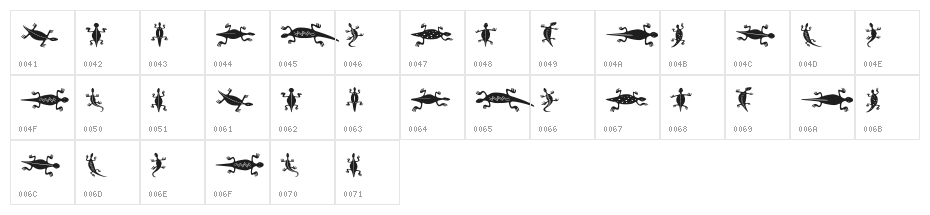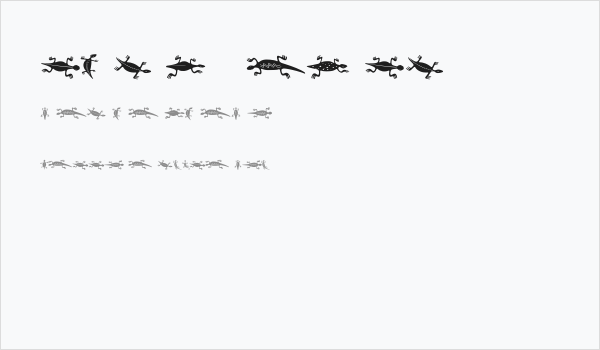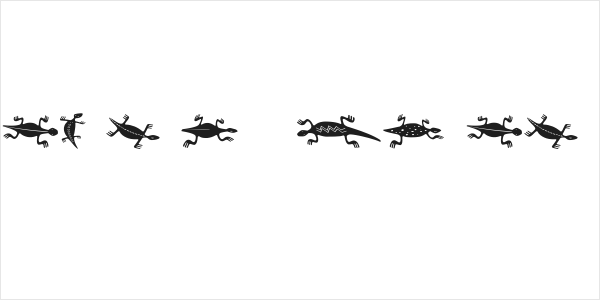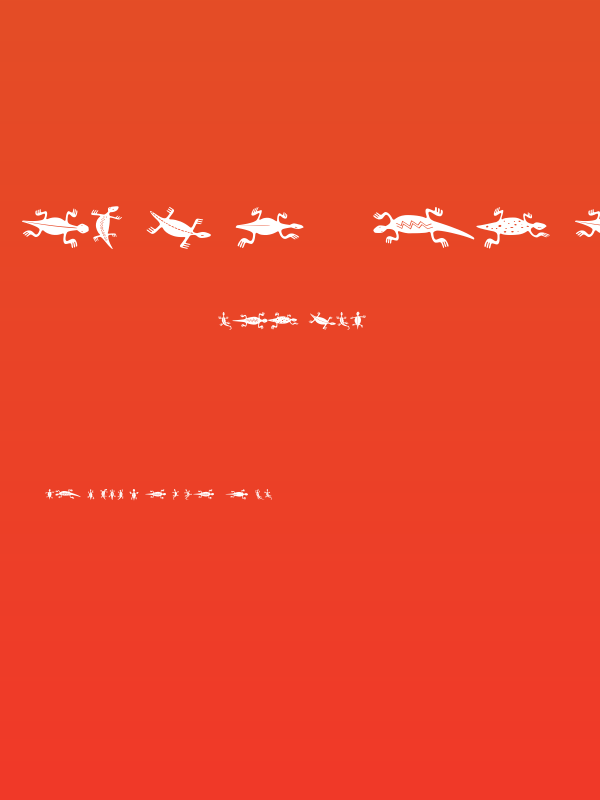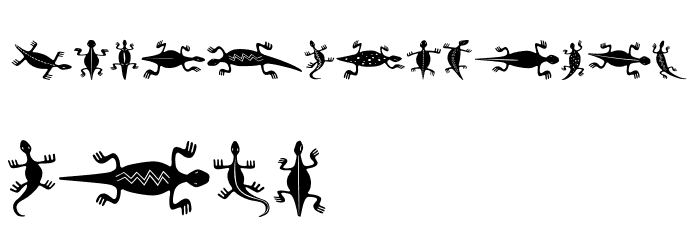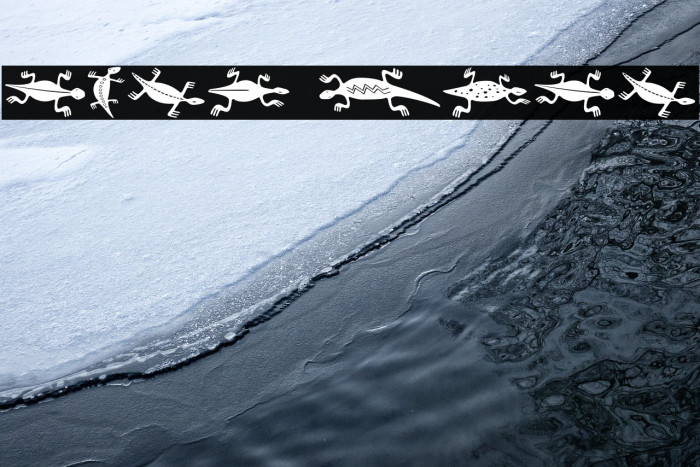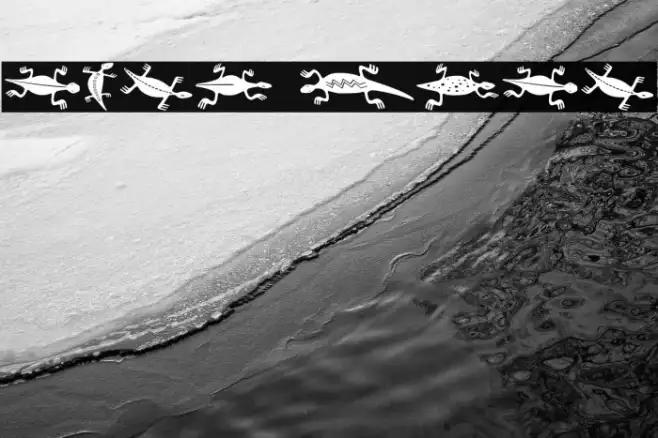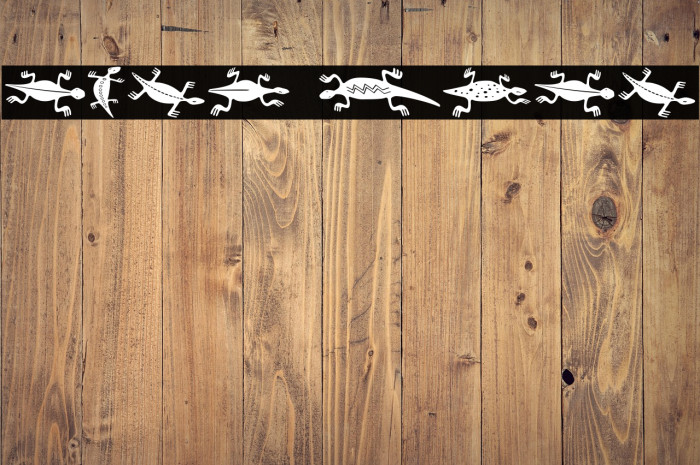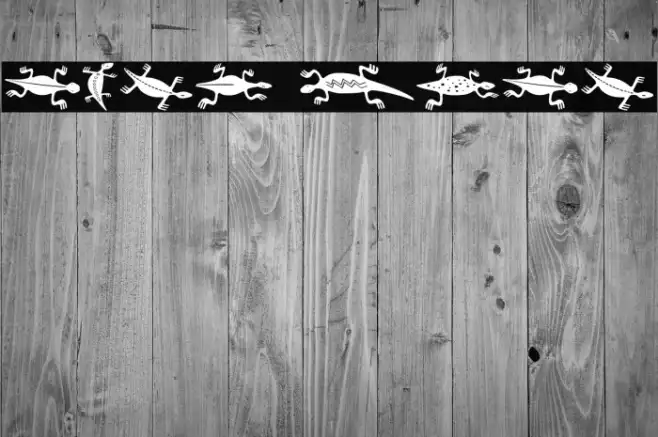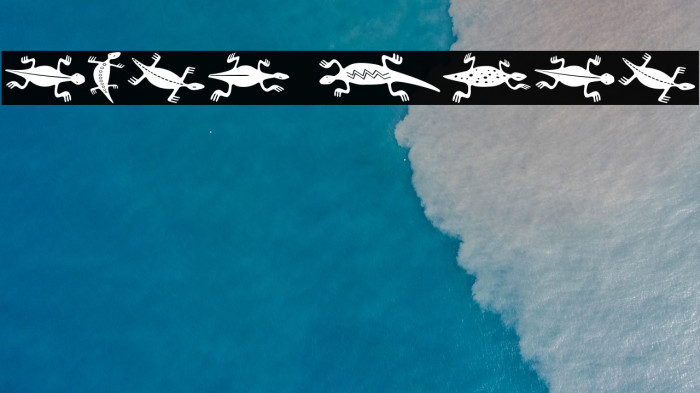
Lizards Regular Font
Lizards Regular Description
This unique design features stylized lizard motifs instead of traditional alphanumeric characters. Each symbol is intricately crafted to resemble a lizard in various poses, offering a playful and artistic touch. The design is bold and eye-catching, making it ideal for decorative purposes. The lizards are depicted in a consistent style, with smooth curves and distinct outlines, ensuring clarity and visual appeal. This creative approach transforms standard text into a lively and engaging visual experience.
| Use Case | Logos, Decorative headings, Themed designs |
| Proposed Projects | Ideal for creative projects such as children's books, playful branding, themed event invitations, or any design requiring a whimsical and artistic touch. |